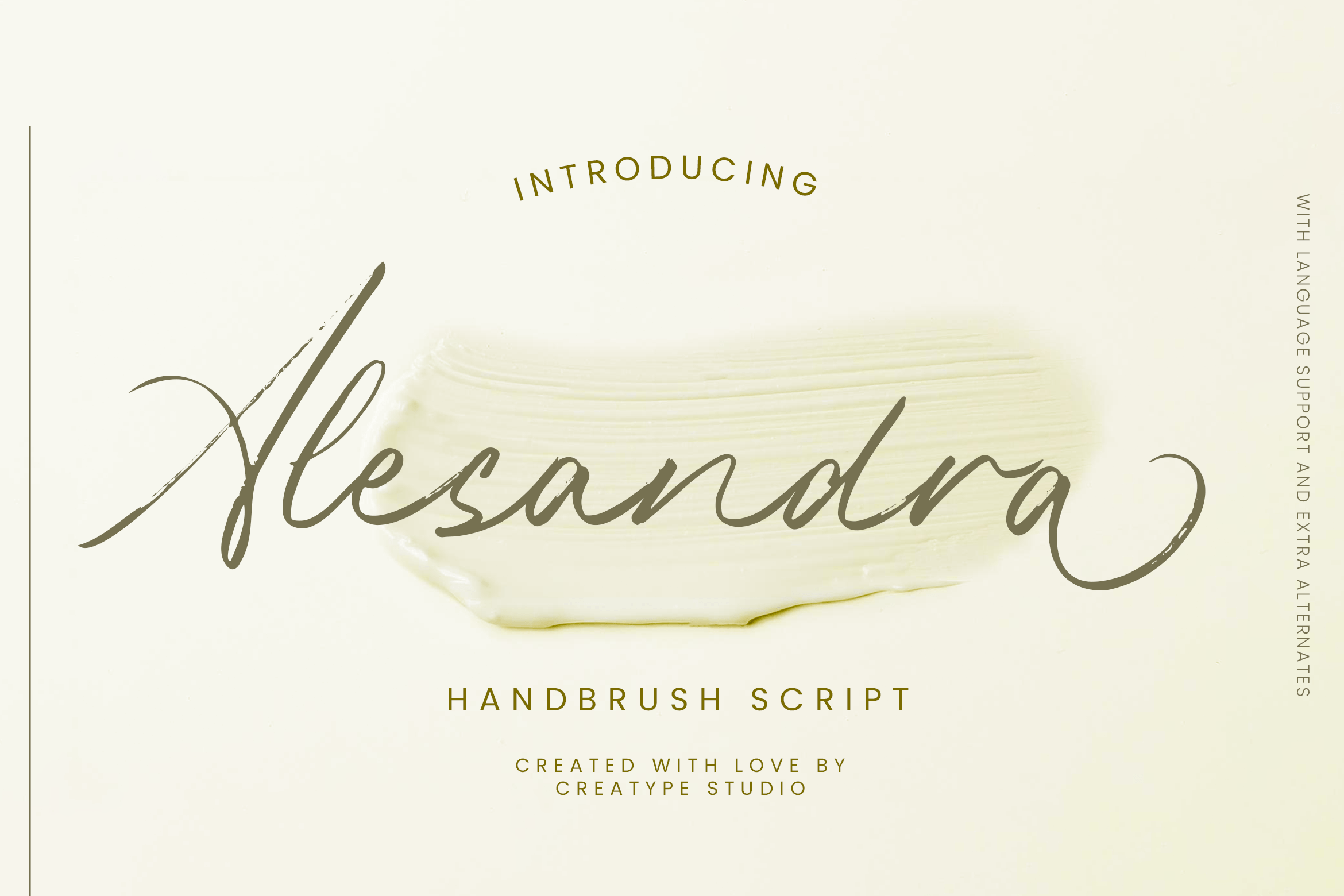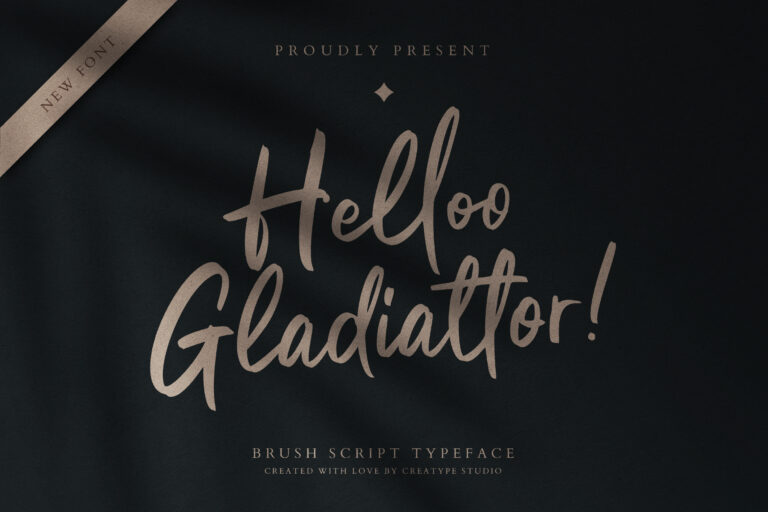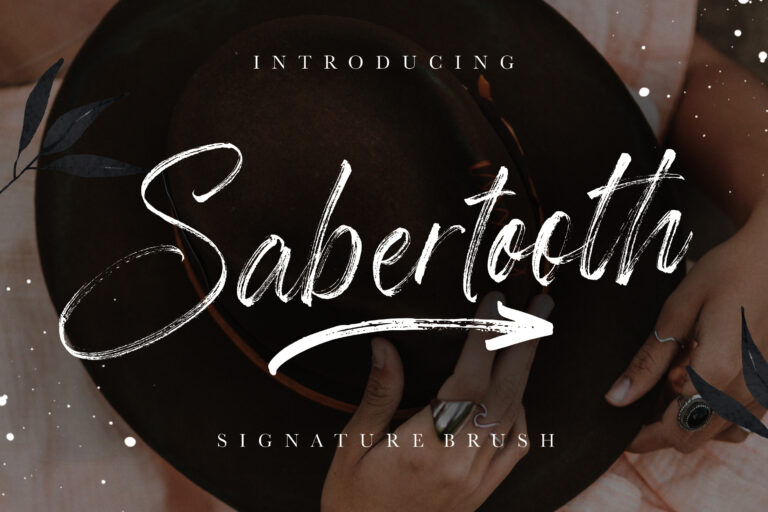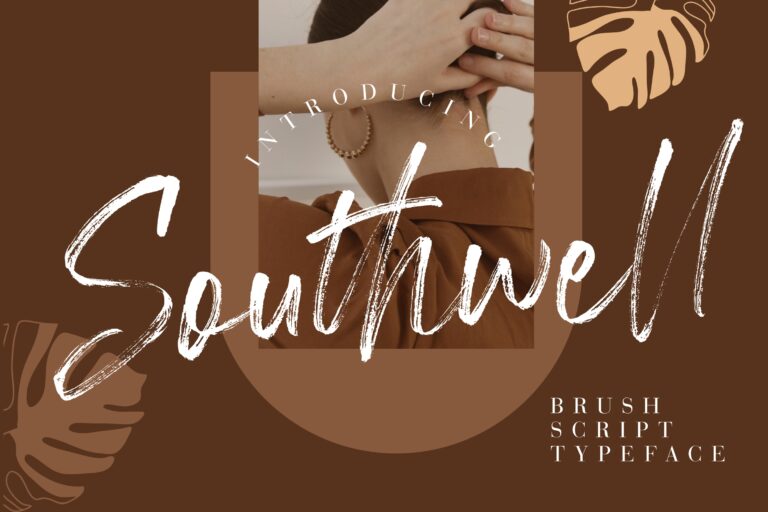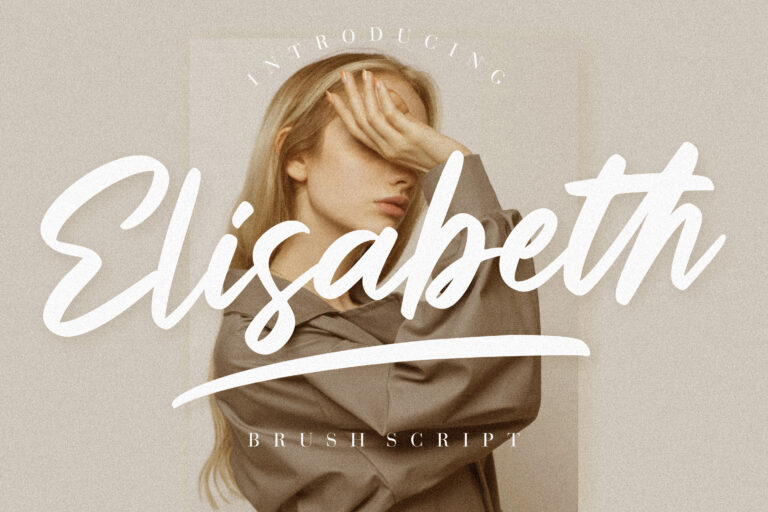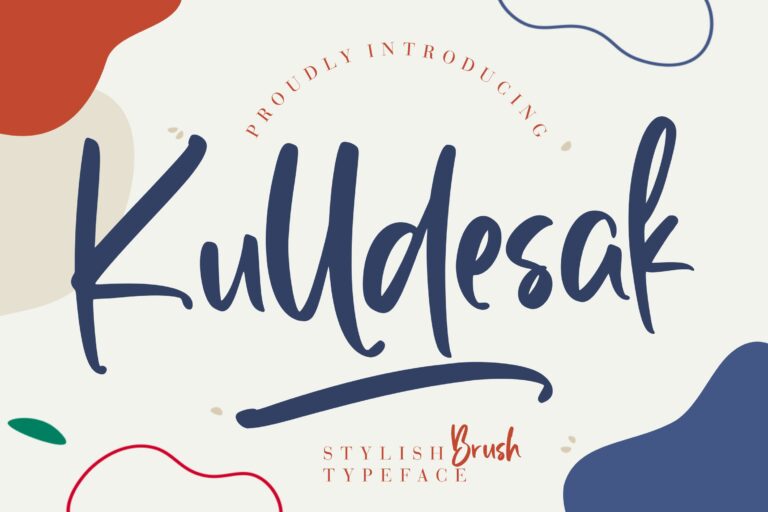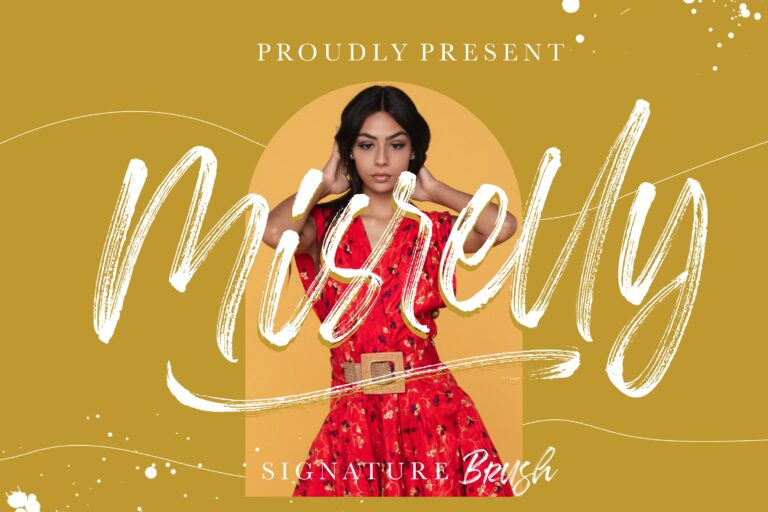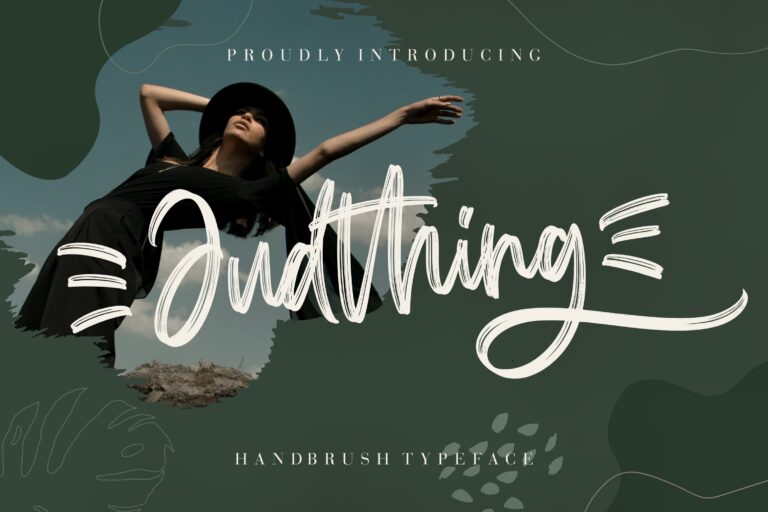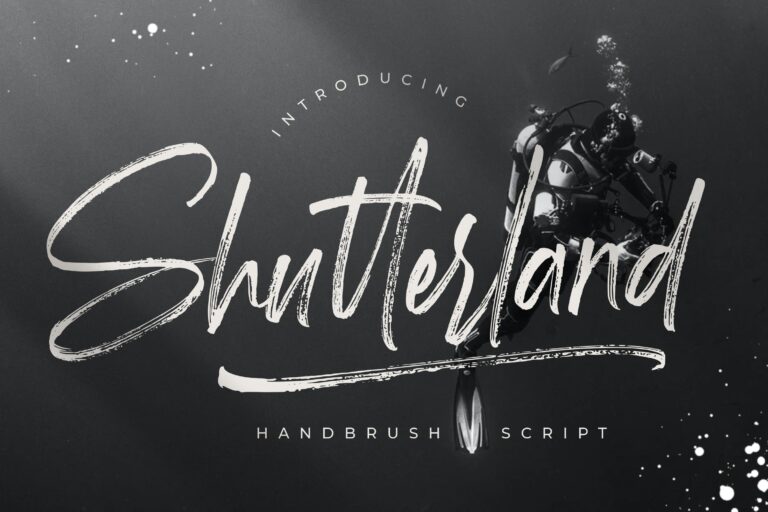
17 Brush Script Font Choices for Logos, Branding, and More
Stylish Brush Script Fonts for Logos, Branding, and More
A brush script font is loved for its dynamic strokes, handcrafted feel, and expressive energy. Font researchers found that these fonts are visually appealing and create an emotional touch. That’s why it’s important to pick the right one, especially if you want both beauty and easy-to-read text.
In this article, you’re going to discover some of the best brush script fonts to help you find the perfect balance between artistic flair and functional design.
• Brush script typeface adds a handcrafted, expressive touch to any design.
• Choose the fonts that balance style with readability.
• Explore creative options to match your brand’s tone and message.
Why Brush Script Font Makes a Bold Statement in Design
Besides the aesthetics, here are some reasons why designers choose to pick this font.
• Authentic Handcrafted Look: brush script fonts mimic real brush strokes, adding a personal, organic feel to your design.
• Versatile Style: brush script fonts work well across various creative projects.
Best Brush Script Font to Try for Your Next Design
Keep scrolling and be ready to find your suitable brush script typeface for your needs!
1. Alesandra
Alesandra is not just another handbrush script; it’s a charming blend of beauty and versatility. This brushed script font features elegant strokes and a natural flow, making it perfect for any design needs.
2. Bottanical
Designed with smooth, organic strokes and subtle texture, this script font offers a warm, hand-drawn feel perfect for your design. Use it for nature-inspired branding with a touch of authenticity.
3. Broocklyn
Broocklyn isn’t your average stencil font; it’s where bold meets classy. With its sleek cuts and smooth curves, it brings a cool, confident vibe. It demands attention while still keeping things effortlessly stylish.
4. Khingston
Need a splash of fun and a dash of attitude in your design? Khingston is your go-to! This bold handbrush script bursts with personality, packed with textured strokes and stylish flair.
5. Ghonzalles
Get ready to dial up the charm with Gonzalles! A lively brush calligraphy font with natural warmth and unique flair, bringing a handcrafted feel to your designs. It’s full of personality and movement that makes every word feel alive.
6. Buster
Bold, rugged, and full of attitude! Buster brings dry-brush texture and hand-drawn energy thanks to its raw strokes and natural flair.
7. The Brands Quest
The Brands Quest is a spirited signature brush font overflowing with texture and flair! Its lively, hand-painted strokes make every word feel personal and bold, a great choice if you’re looking for the best brush script font for expressive design.
8. Sophiatica
8. Sophiaticha
It is a smooth, bold brush script that radiates style and femininity! Its consistent, flowing strokes and graceful swashes give it a beautifully handcrafted vibe.
9. Kattalyna
Kattalyna comes with a handwritten charm with a brushy twist! Its textured strokes and elegant flow add just the right flair.
10. Helloo Gladiattor
10. Helloo-Gladiattor
Confidently casual yet boldly refined, every letter of Helloo Gladiattor strikes the perfect balance between handcrafted charm and expressive flair that brings a stylish punch to any design you create.
11. Sabertooth
Sabertooth roars with bold charm. It is a popular brush script font packed with raw strokes, casual flair, and just the right touch of modern edge.
12. Southwell
Ready to give your designs a fresh, hand-scribed vibe? Southwell is a brush script that rocks a scratchy, natural movement, like it was snapped straight from a real brushstroke.
13. Elisabeth
Charming, bold, and richly textured! Elisabeth captures the beauty of raw brush strokes with luxurious flair, perfect as one of the brush script fonts for graphic designers who want handcrafted elegance in their work.
14. Kulldesak
Kulldesak is a stylish brush script with a modern yet relaxed feel. Its bold strokes and playful shapes give off a fresh, handwritten charm that’s easy to love and fun to use.
15. Misrelly
Misrelly is a stylish brush script font with a modern feel. Its smooth strokes and elegant flow bring a touch of class and personality to any design.
16. Judthing
This modern brush script bursts with handmade charm, featuring natural strokes and a smooth flow that brings expressive energy with effortless simplicity.